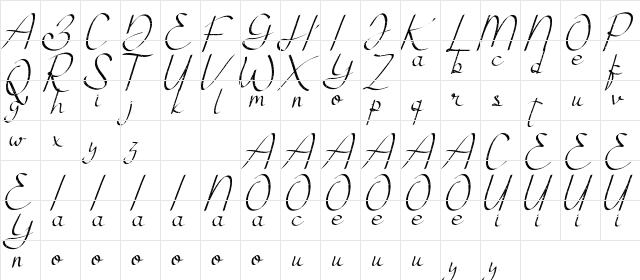
Atthia Demo Vintage Regular
| Foundry | Edric Studio |
| Designer | Renata Insan C & Muhammad Deyan S |
Design Context for Atthia Demo Vintage Typeface
Atthia Demo Vintage has the warm character of retro typography — evoking diners, record sleeves, and the golden age of print advertising.
Ideal for diner signage, record shop branding, 70s/80s-themed projects, and heritage product labels.
Font Pairing: Combine Atthia Demo Vintage with a simple slab or neutral sans — period-accurate companions reinforce the vintage feel without competing for attention.
Pro Tip: Lean into Atthia Demo Vintage's period character by pairing it with aged paper textures, muted colour palettes, and vintage illustration styles.